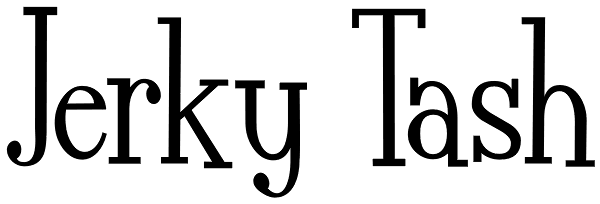
Jerky Tash
Jerky Tash is supposed to look somewhat handwritten, that’s why it has got jumpy letters, different sized serifs and a loose kerning. The font is spaced to look okay when used without kerning, but the font definitely deserves to be viewed using the...